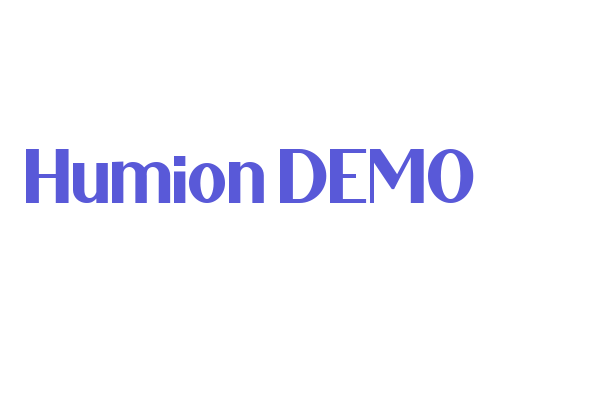
Humion DEMO is a basic sans serif font designed by Sayins. With a clean and modern style, this font is perfect for a wide range of design projects. Its simplicity and readability make it ideal for logos, headlines, and other graphic design elements.
Font Name: Humion DEMO
Designer: Sayins
Font Family: Humion DEMO